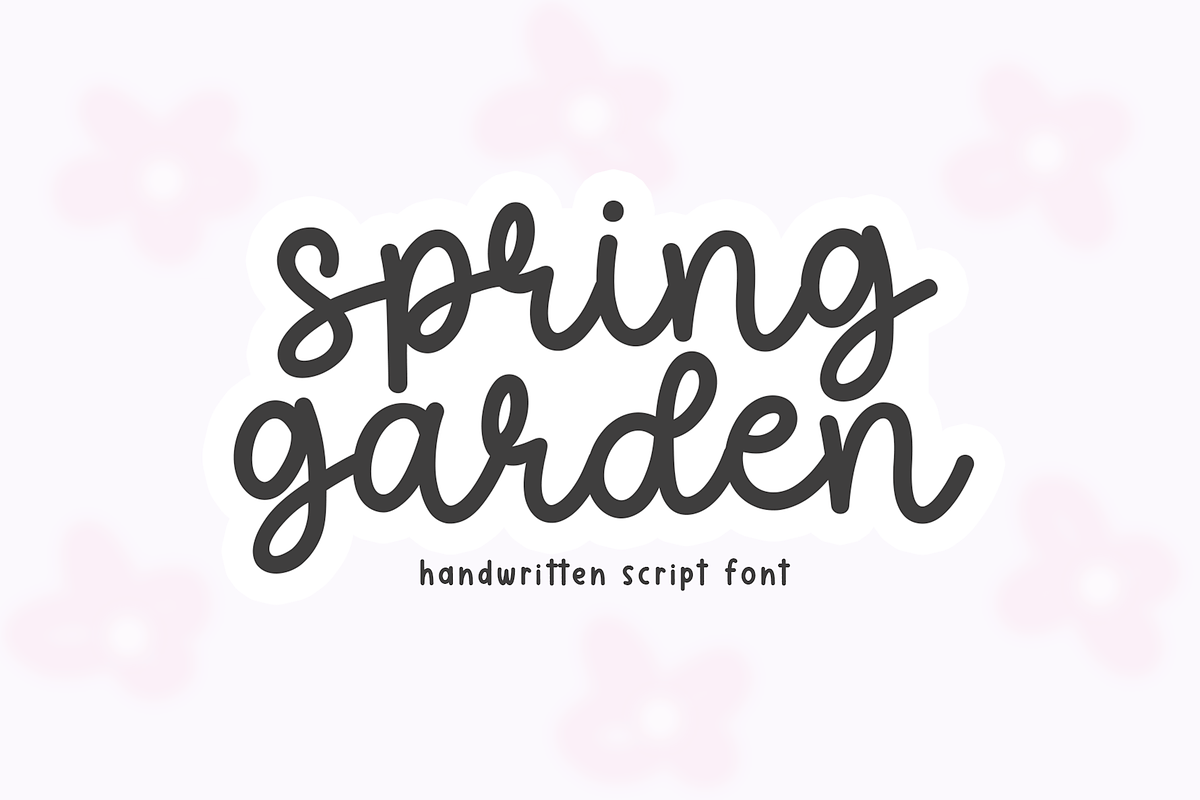
Spring Garden | Cute Script Font Free Download
Spring Garden – Cute Script Font Free Download
Spring Garden – Cute Script Font Free Download is a sweet and whimsical handwritten typeface that captures the light and cheerful spirit of springtime. With its soft curves, playful swashes, and charming handwritten style, this font is perfect for greeting cards, kids’ designs, wedding invitations, seasonal branding, and joyful social media graphics.
Designed to feel fresh, friendly, and full of life, Spring Garden – Cute Script Font Free Download brings a touch of sunshine and creativity to every project. It pairs beautifully with sans-serifs and works wonderfully in both headlines and decorative text.